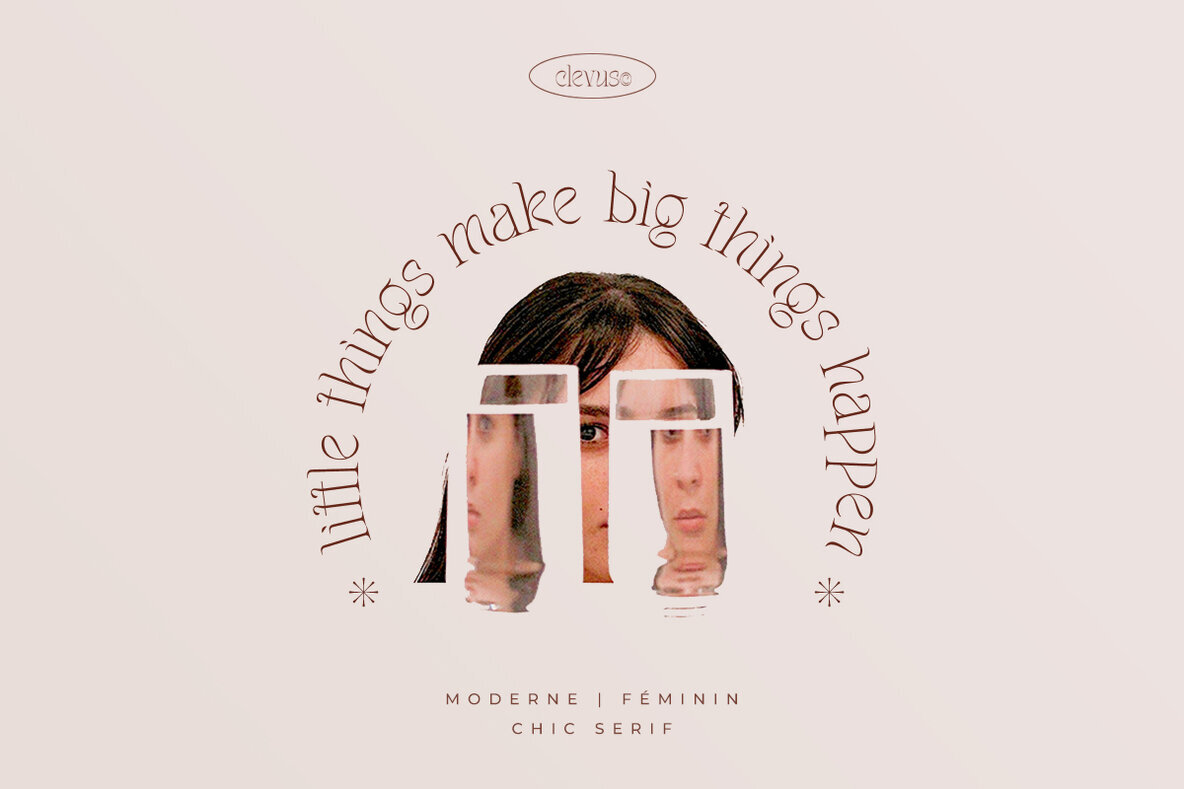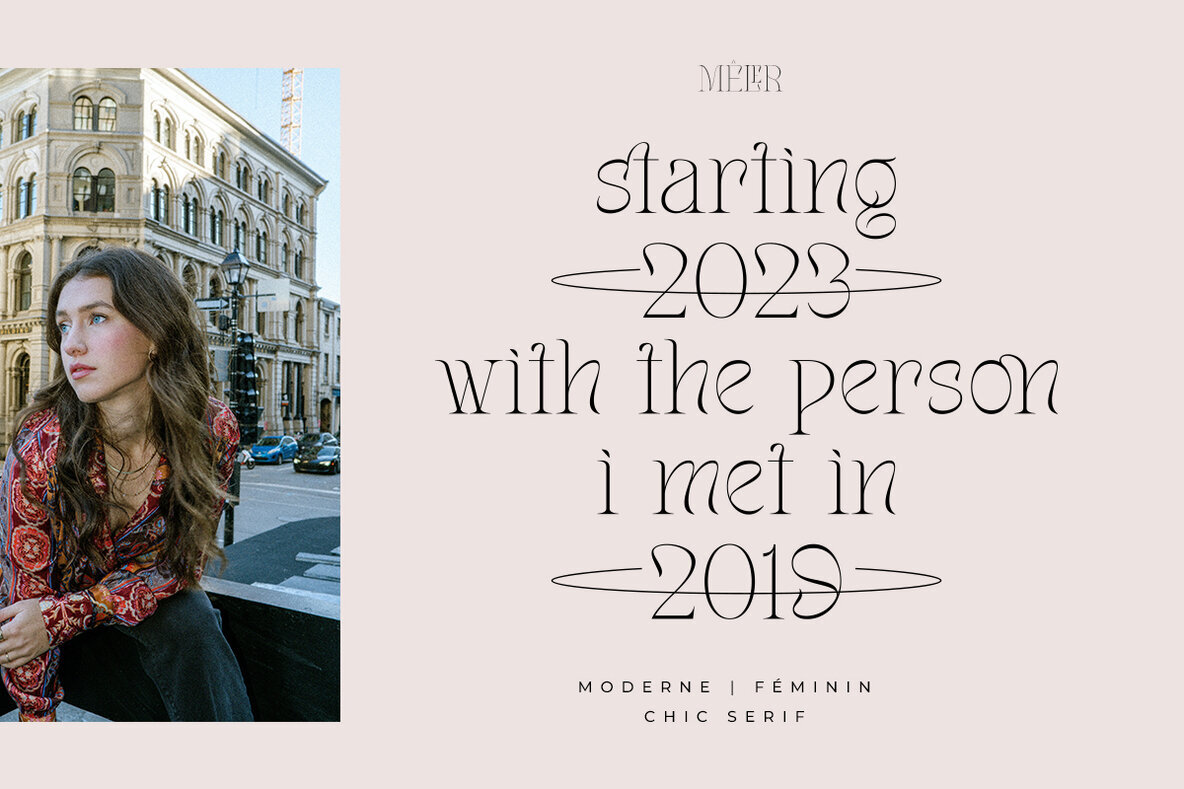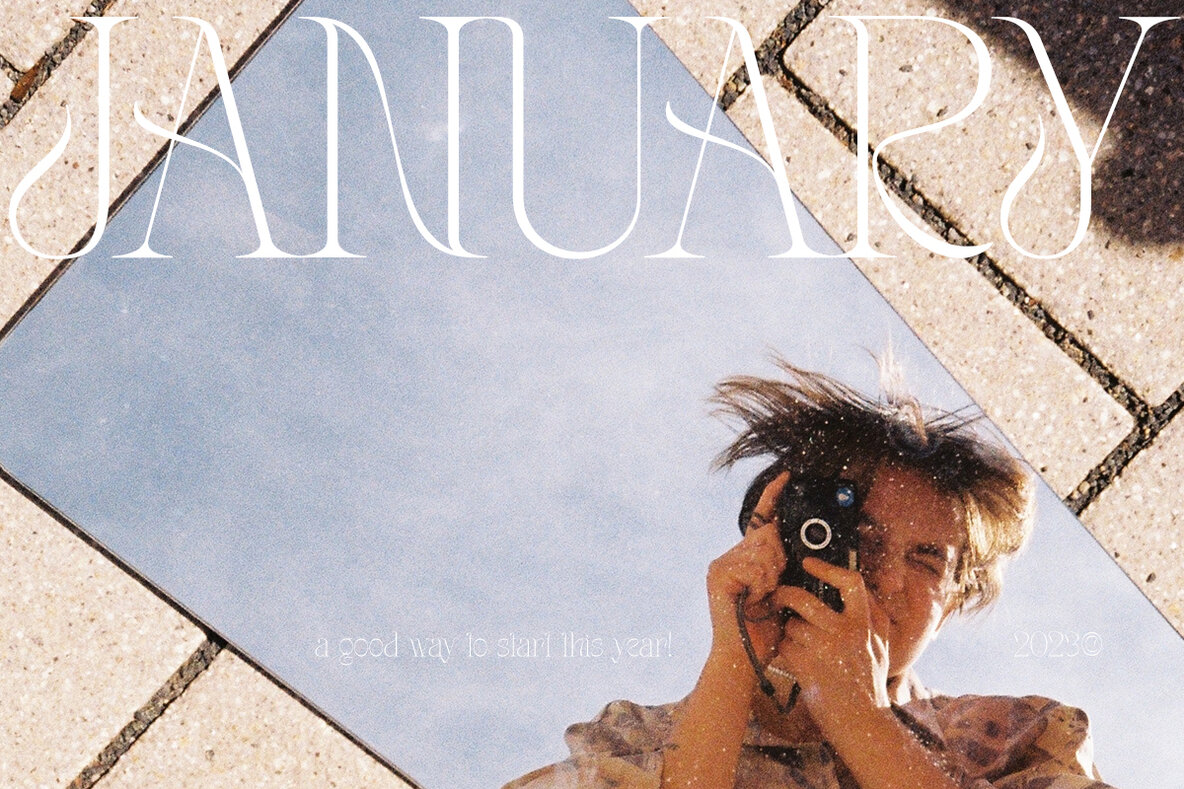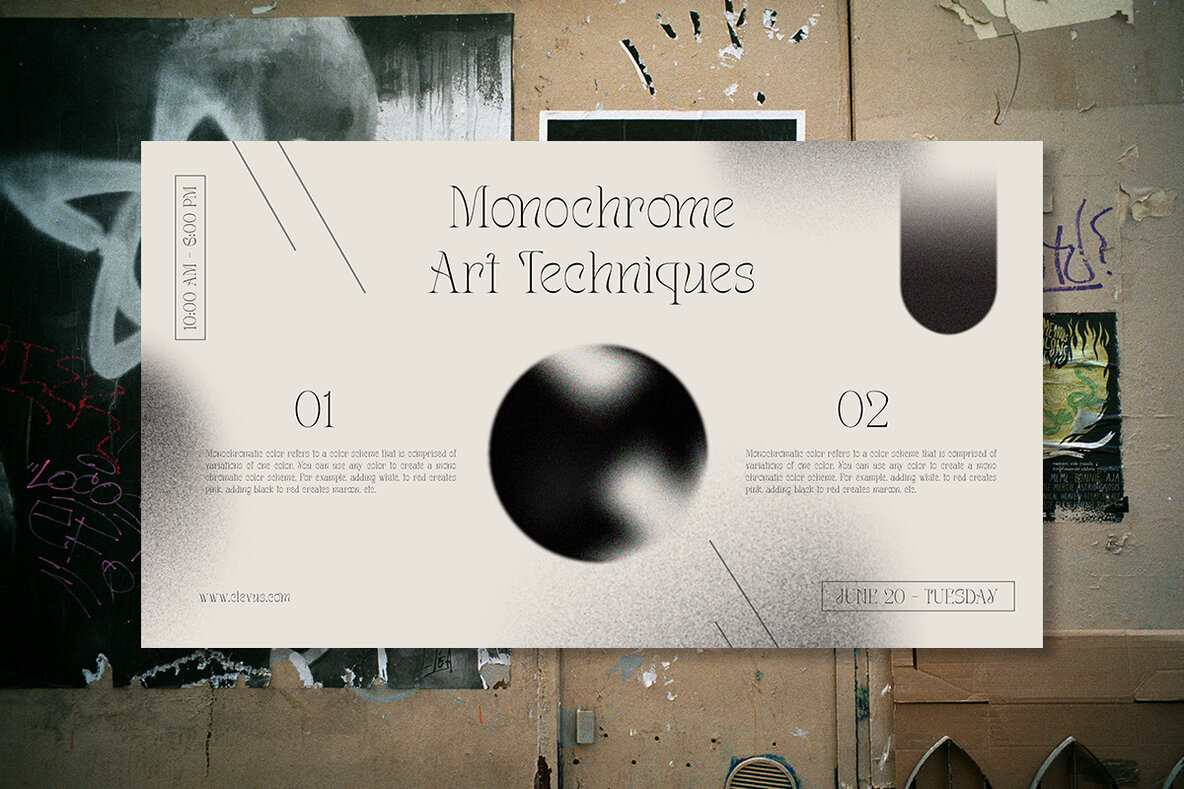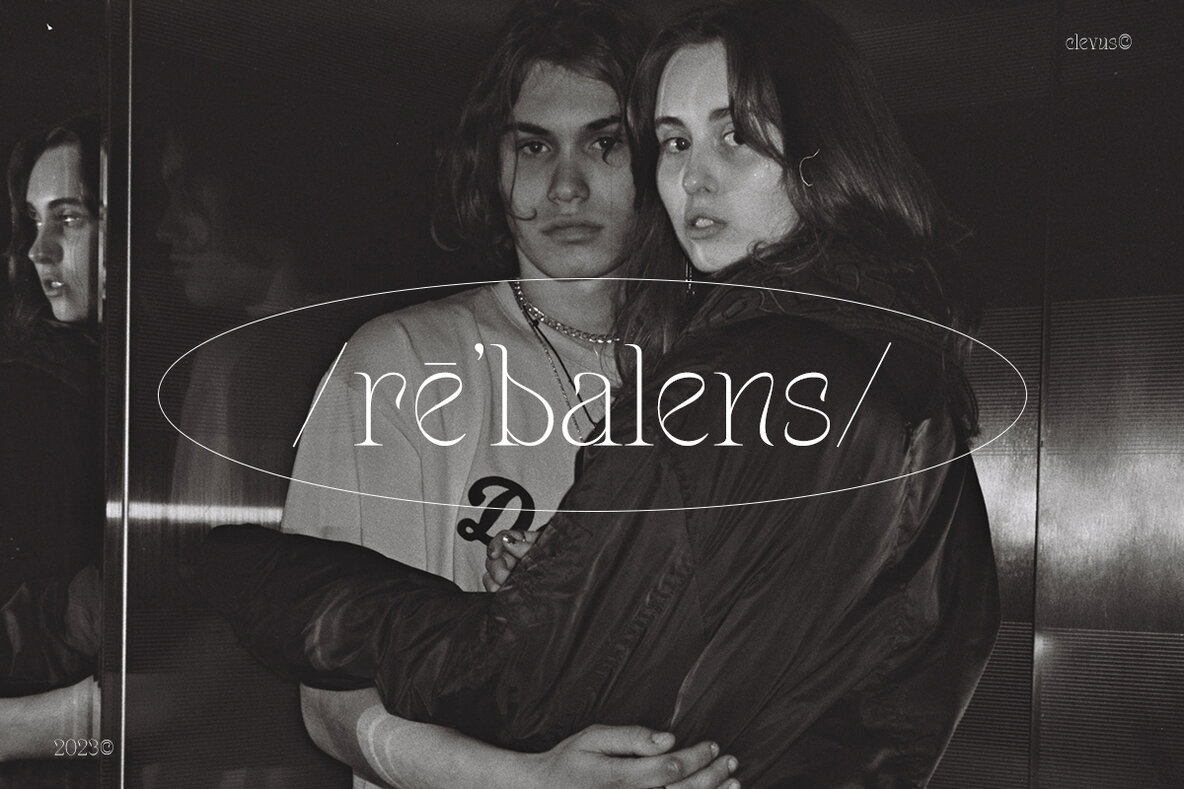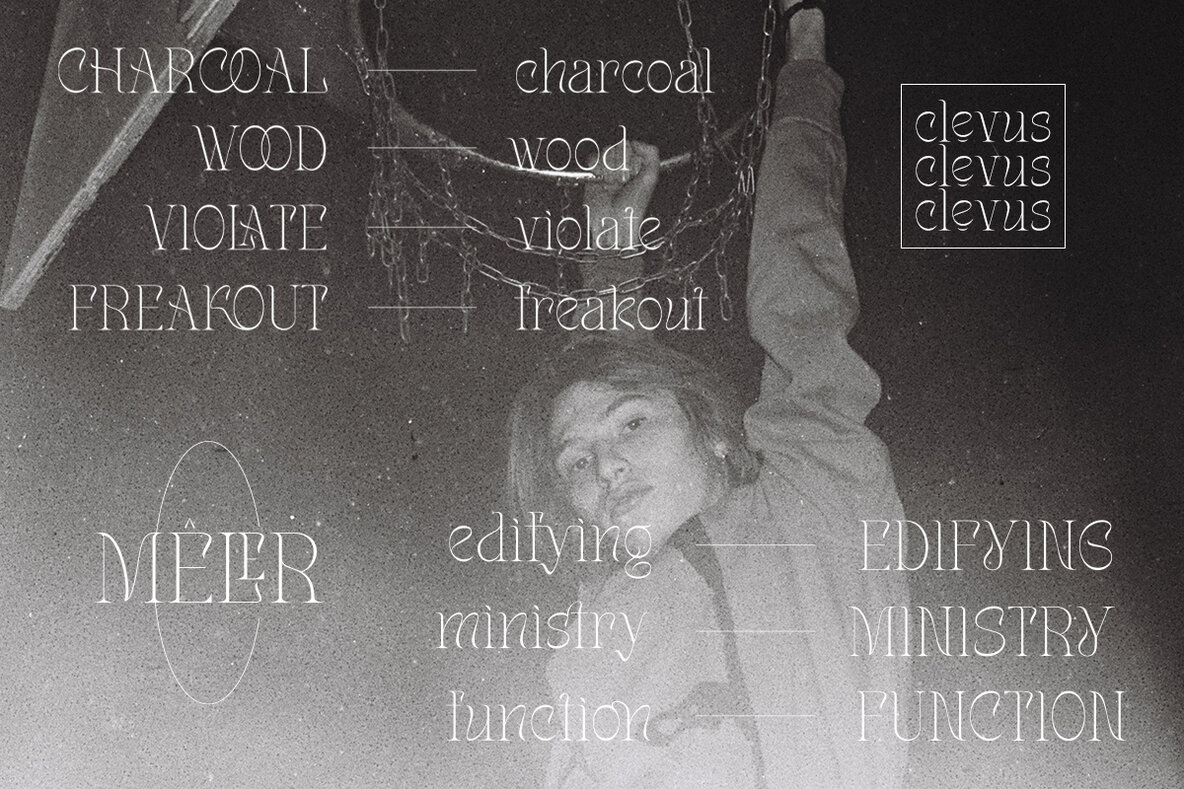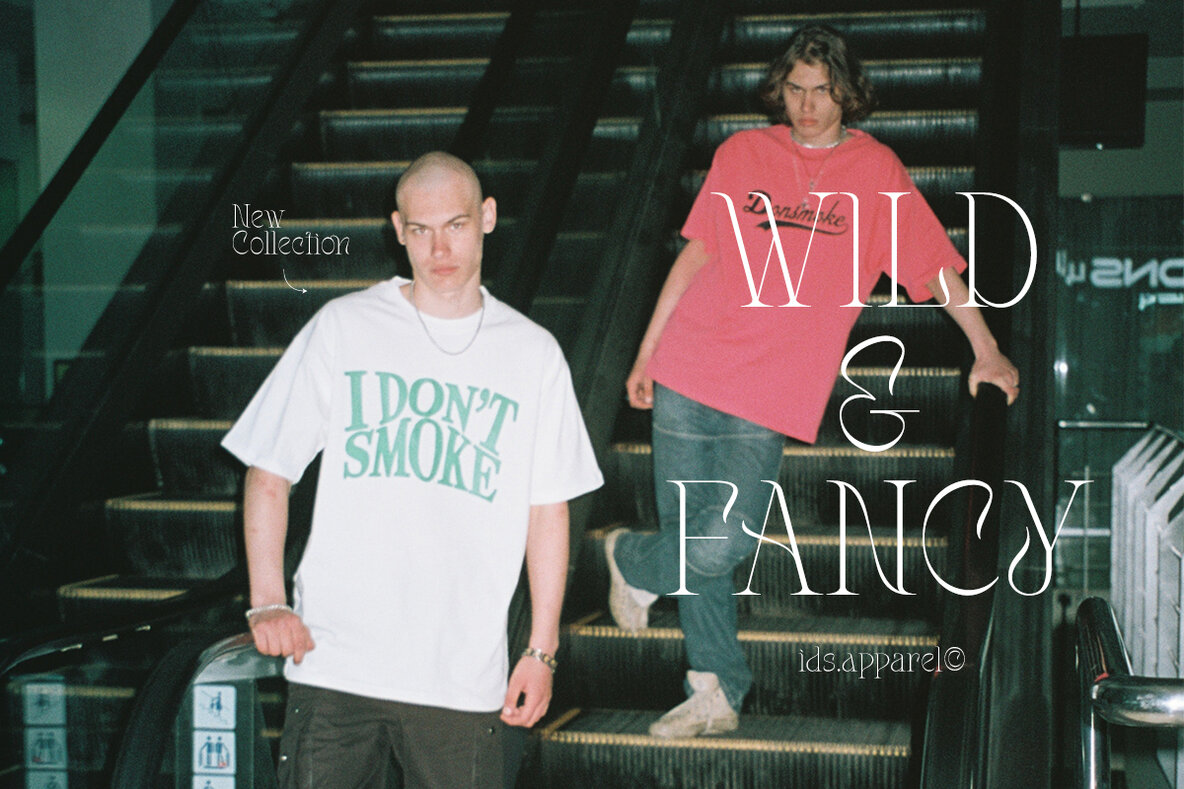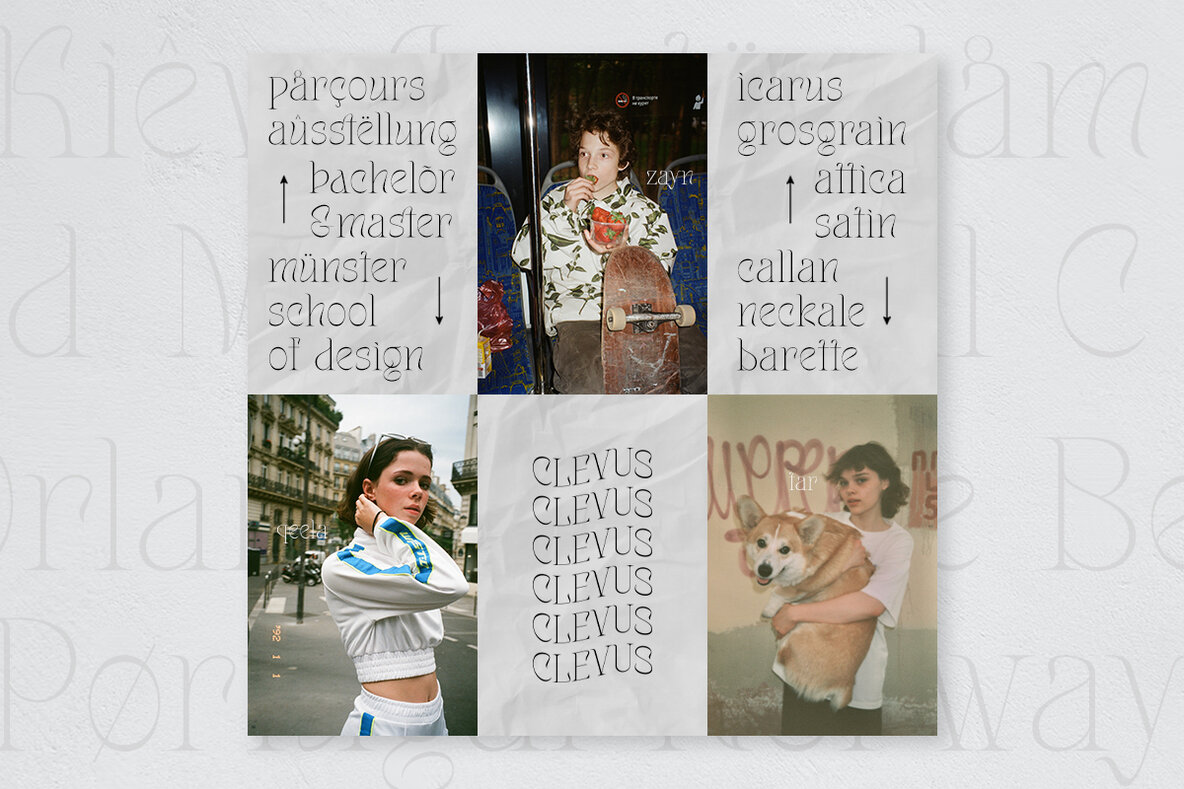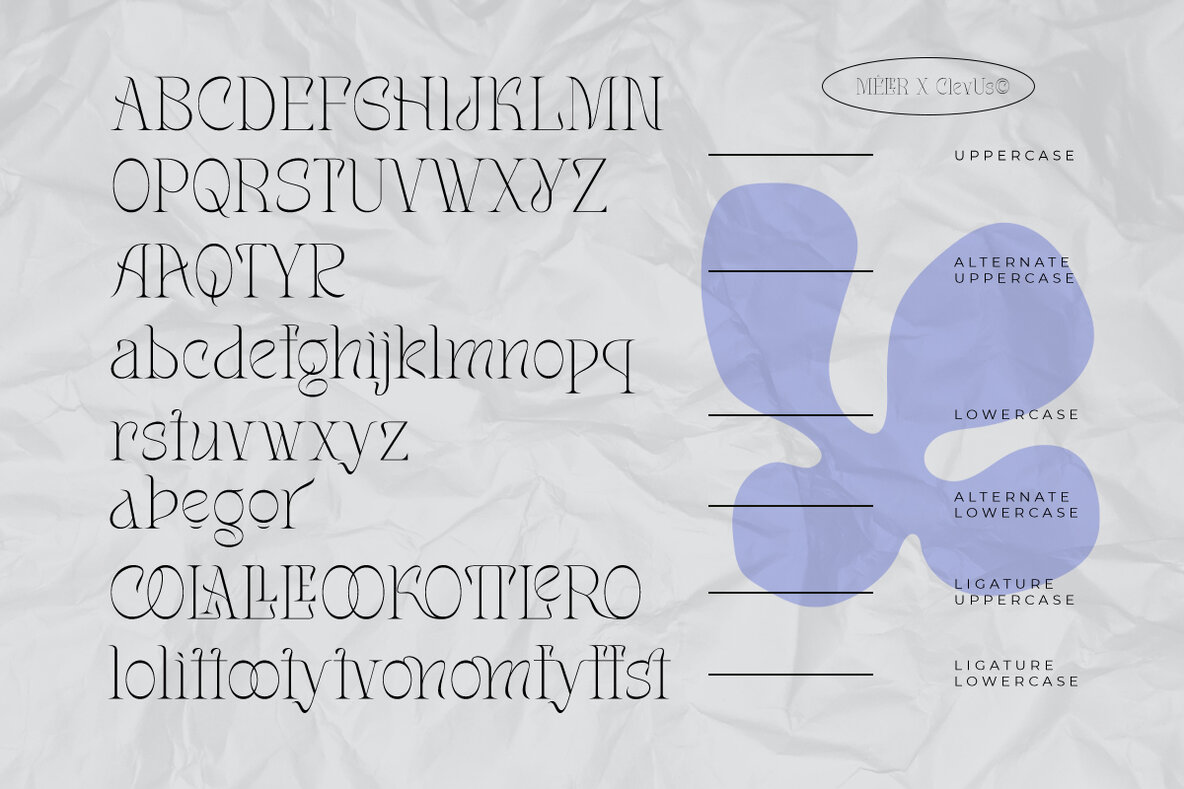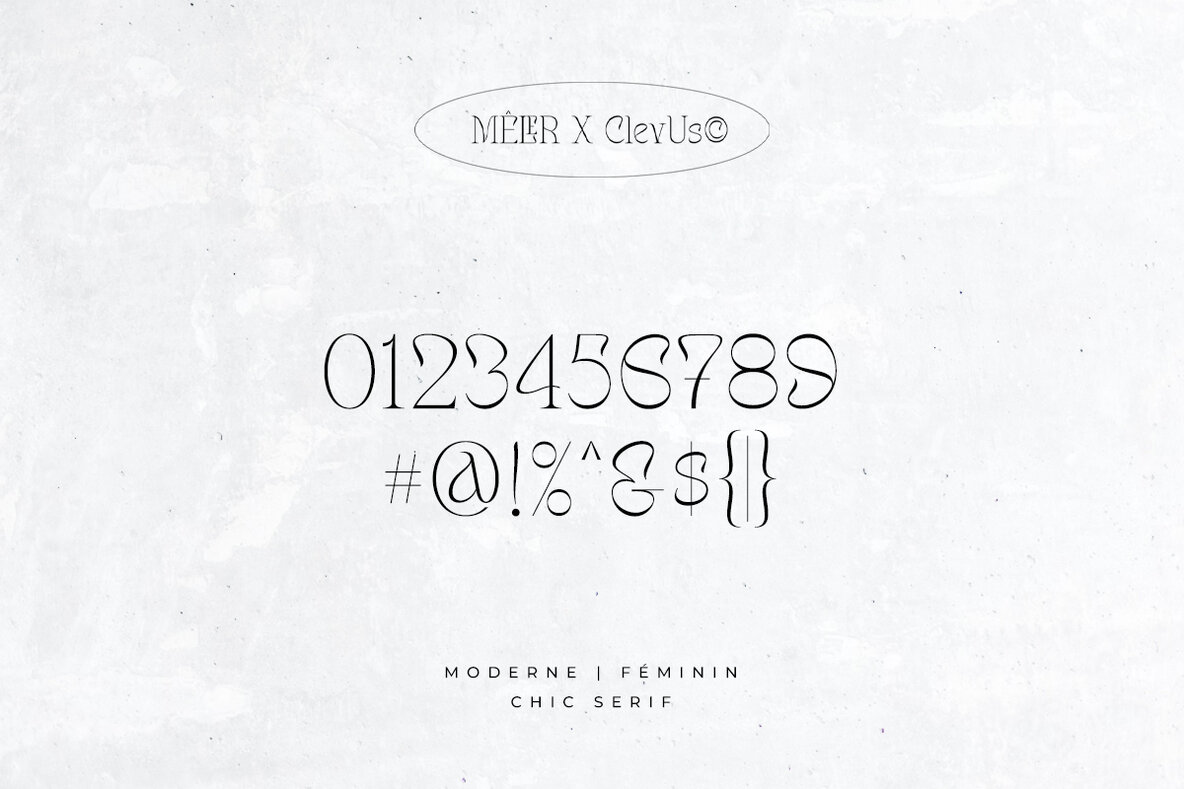
Meler Font
Meler Regular
Meler a modern ligature serif font that draws inspiration from the iconic style of the era. Its regular and edgy lines make it the perfect choice for creating retro-inspired logos, fashion brand, magazine, clothes, lettering, quotes, and other design materials. With Meler, you can effortlessly infuse your work with a touch of nostalgia and capture the essence of the 90s in your designs.